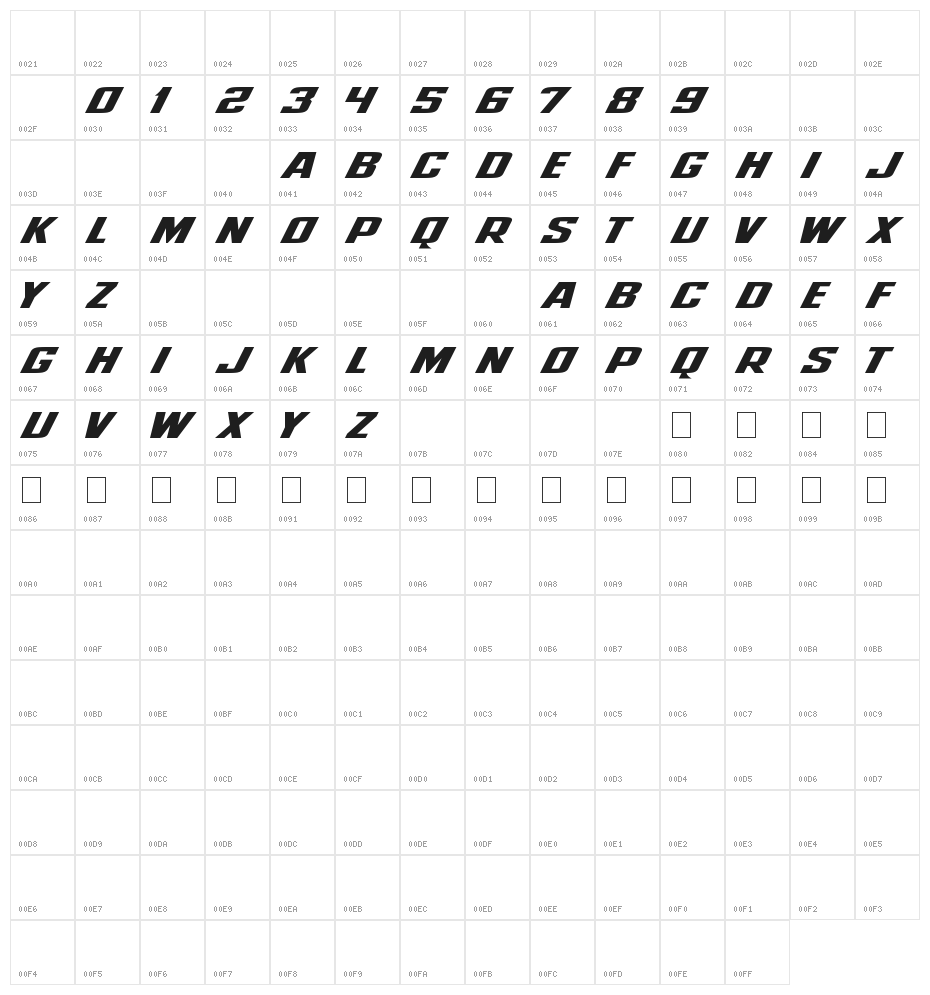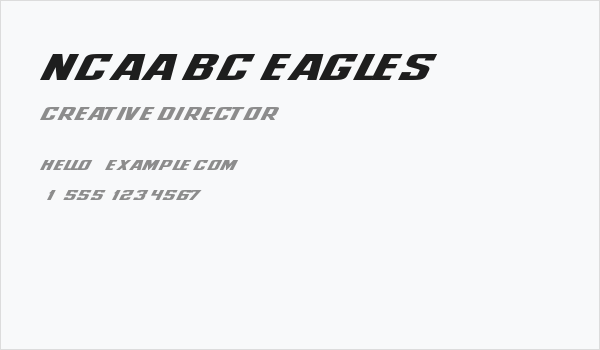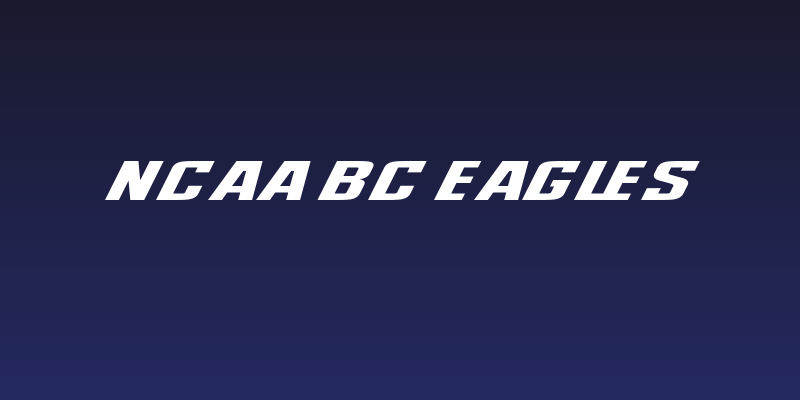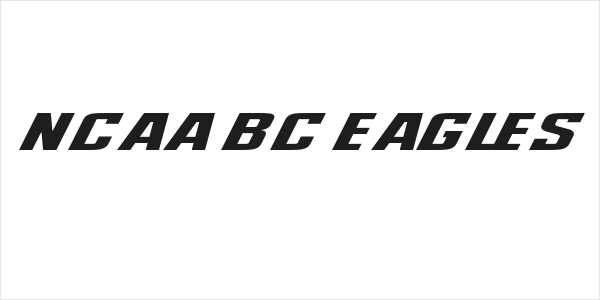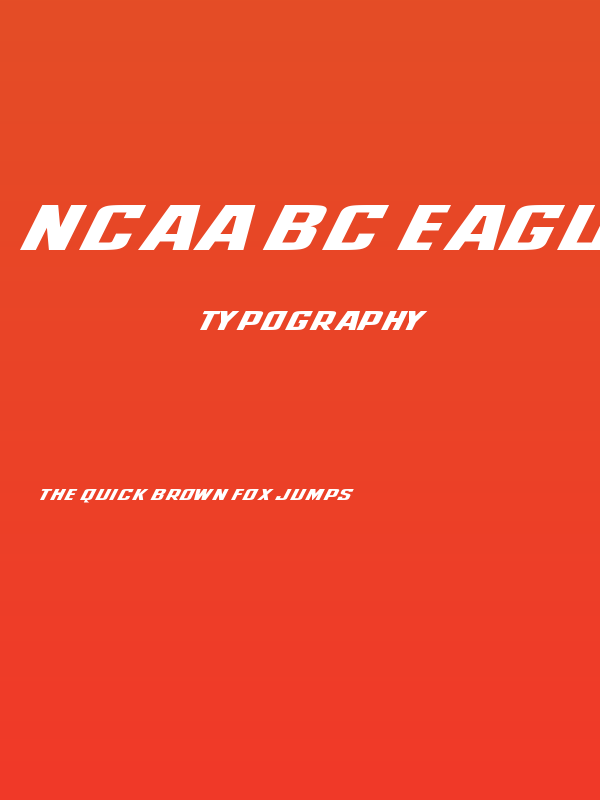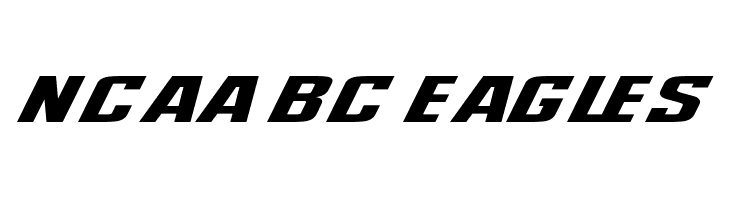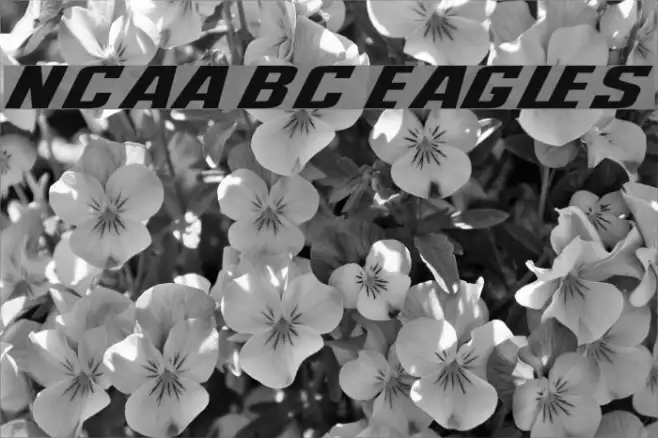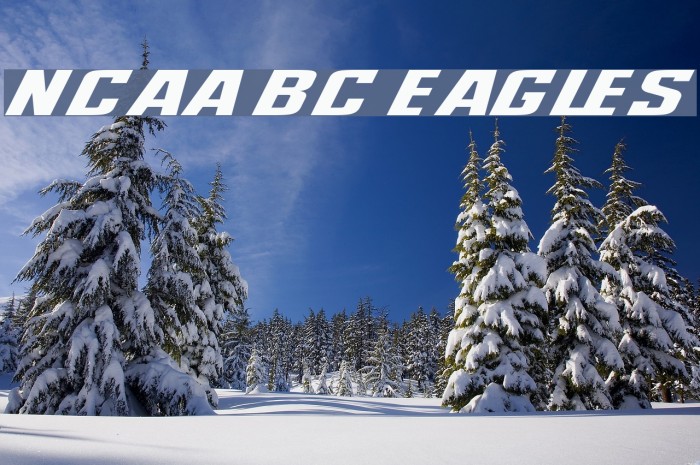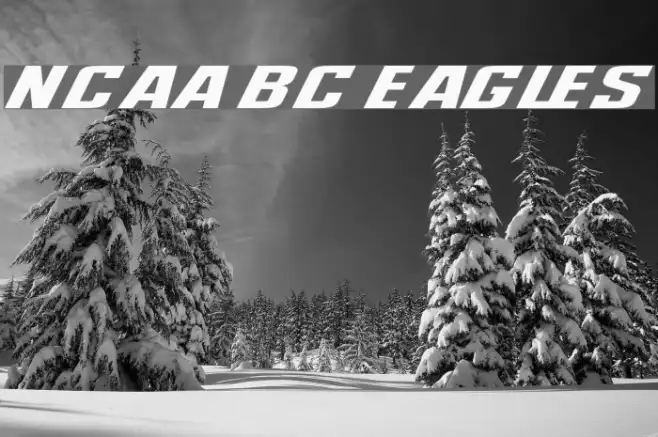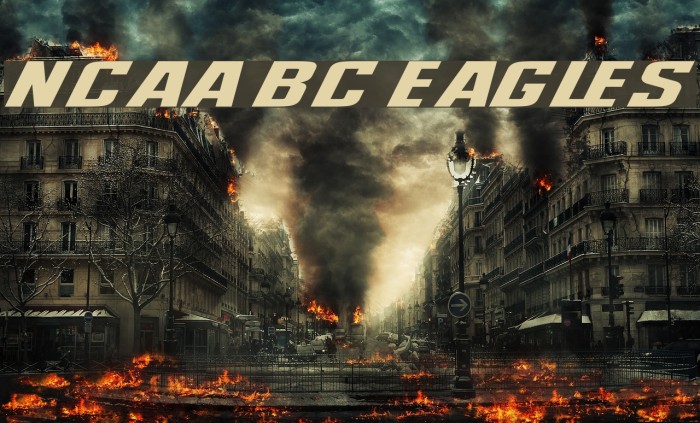
NCAA BC Eagles Font
NCAA BC Eagles Description
This font features a bold, dynamic style with a strong slant, giving it a sense of motion and energy. The characters are designed with sharp angles and a consistent thickness, contributing to a modern and aggressive appearance. The uppercase letters are particularly striking, with a uniform height and width that enhances readability. The numerals follow the same stylistic cues, ensuring a cohesive look across all characters. This font is ideal for projects that require a bold statement, such as sports branding or dynamic advertising.
| Proposed Projects | Sports branding, dynamic advertising, event posters, and merchandise design. |